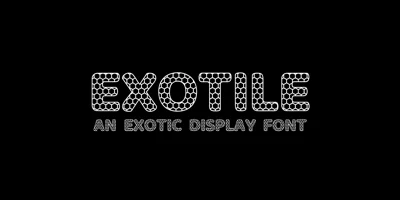
Exotile Font
The Exotile Font is ideal for tropical resort branding, exotic travel agencies, luxury spa retreats, tiki bar signage, ethnic restaurant menus, adventure tourism promotions, island vacation materials, and international cultural festivals. This vibrant typeface excels in applications where exotic allure and cultural diversity need to be emphasized, making it perfect for hospitality brands that want to communicate wanderlust and global adventure through captivating, worldly typography.
What makes Exotile Font exciting is its exotic mystique and global cultural appeal that captures the essence of international travel and cross-cultural exploration. The font's distinctive letterforms and world-inspired character design create an atmosphere of adventure and cultural discovery, making it ideal for brands that want to evoke the thrill of exploring distant lands and experiencing diverse cultures. Its cosmopolitan presence ensures that every application feels like a passport stamp with genuine international authenticity and exotic sophistication.
The Exotile Font family typically includes regular, bold, and decorative weights, often featuring tribal patterns, cultural ornaments, and international symbols that enhance its global appeal. Many versions include exotic motifs, world map elements, and specialized characters that provide designers with comprehensive tools for creating authentic multicultural design projects with genuine international sophistication and cross-cultural elegance.
For designers working on projects that require cultural authenticity and international credibility, Exotile Font provides exceptional global appeal. Its ability to instantly communicate adventure and cultural diversity makes it an invaluable choice for travel brands, hospitality companies, and any project requiring typography that embodies the excitement of exotic destinations, the beauty of cultural exploration, and the sophisticated allure of international travel and cross-cultural experiences.